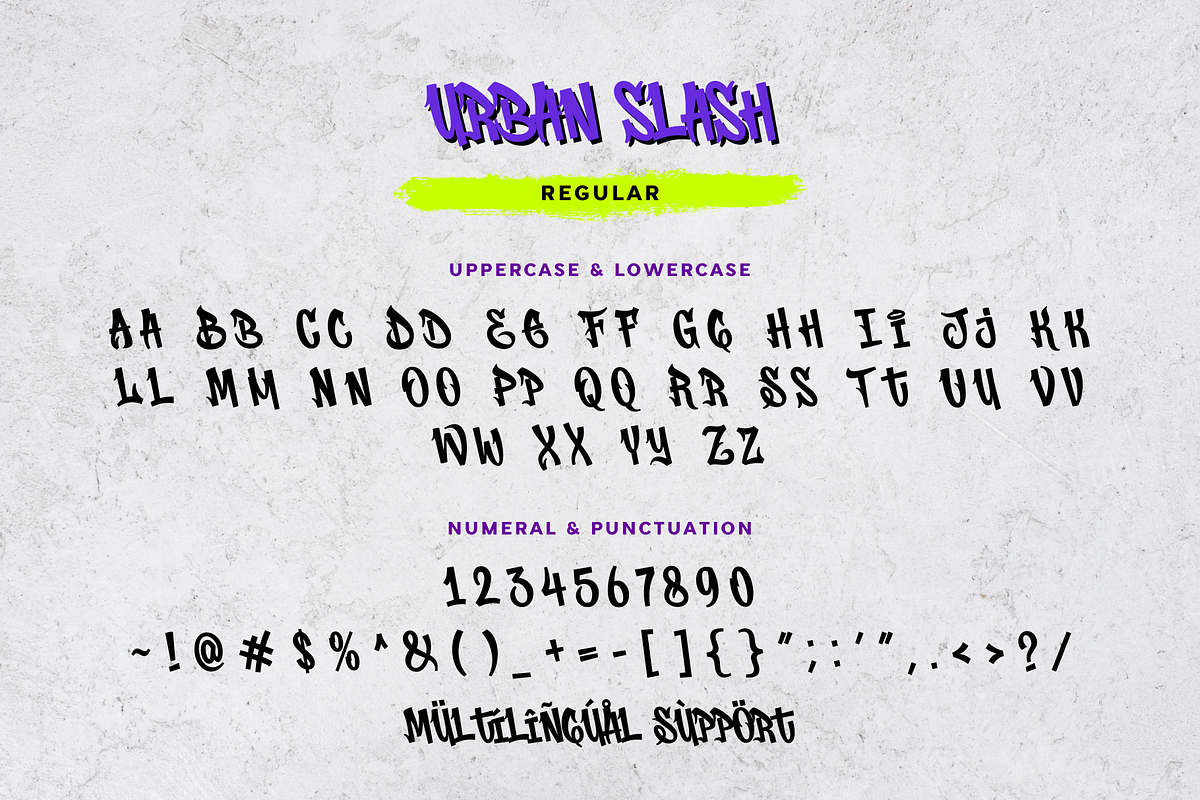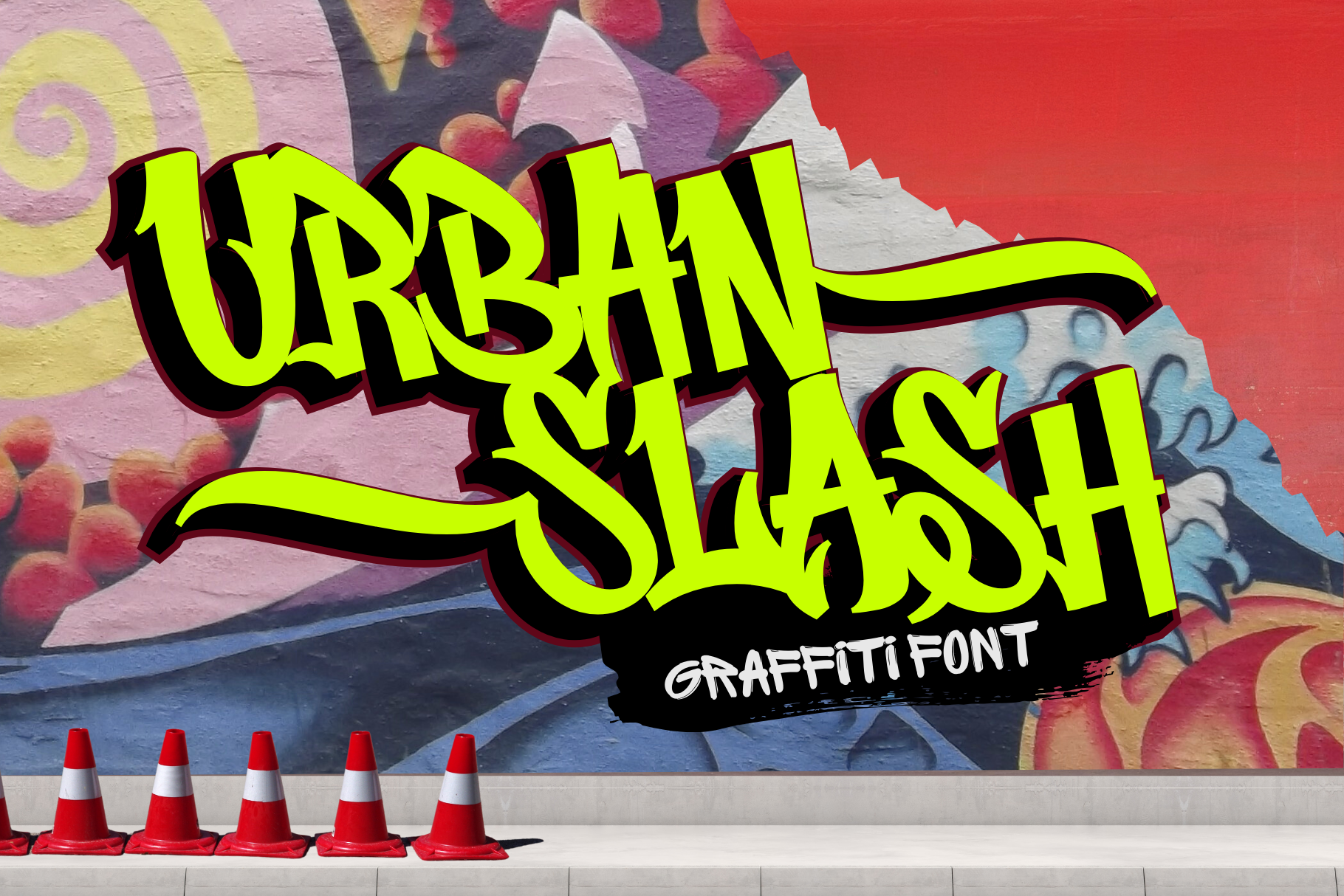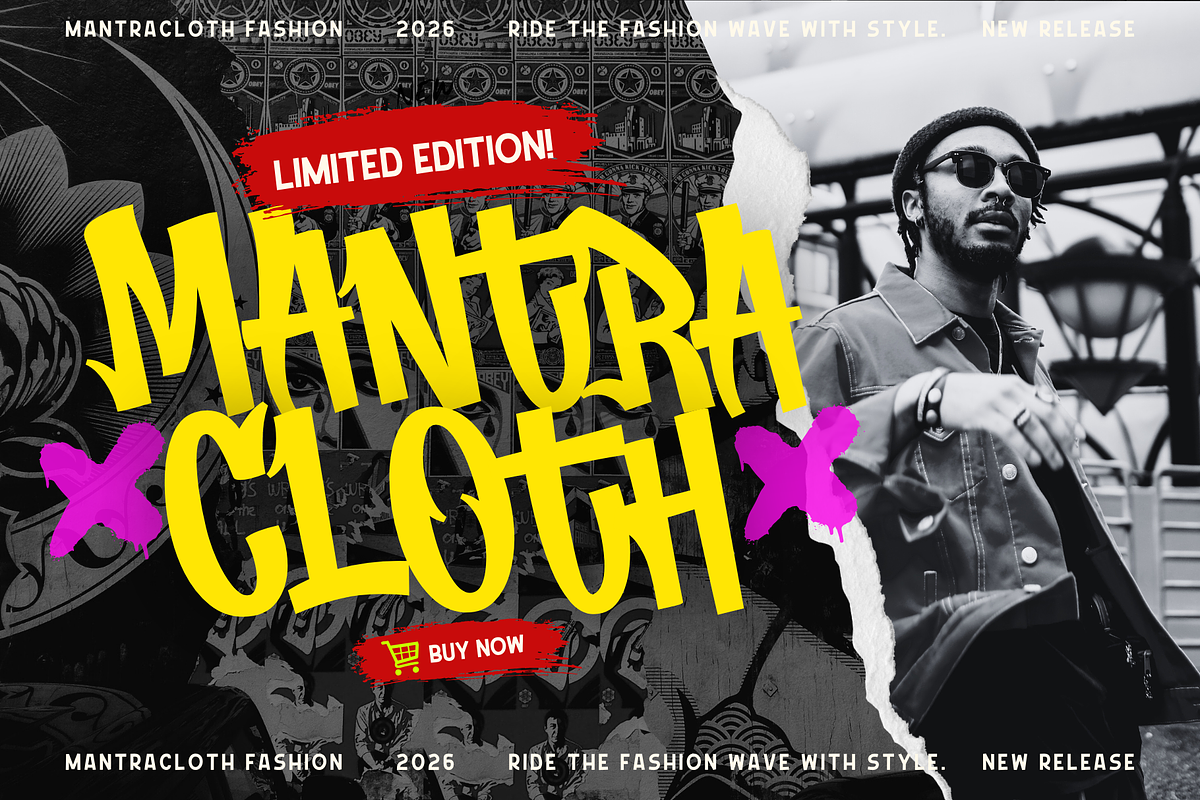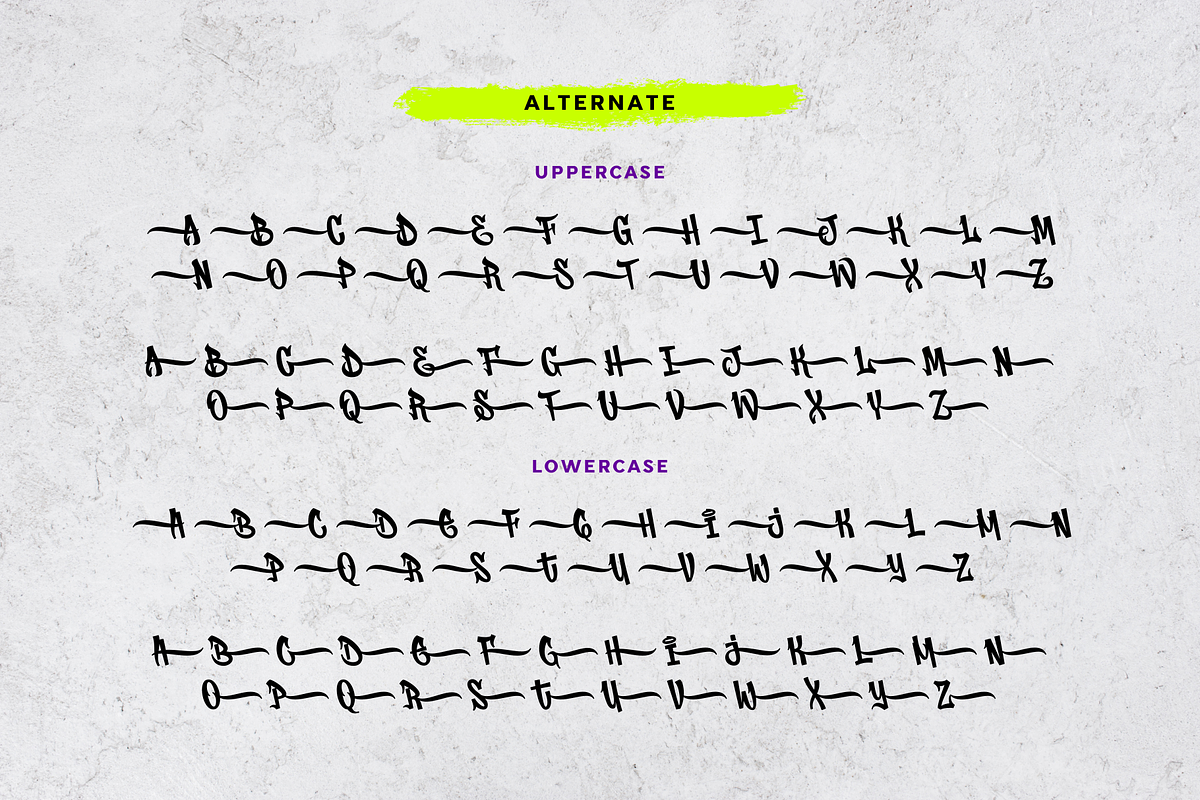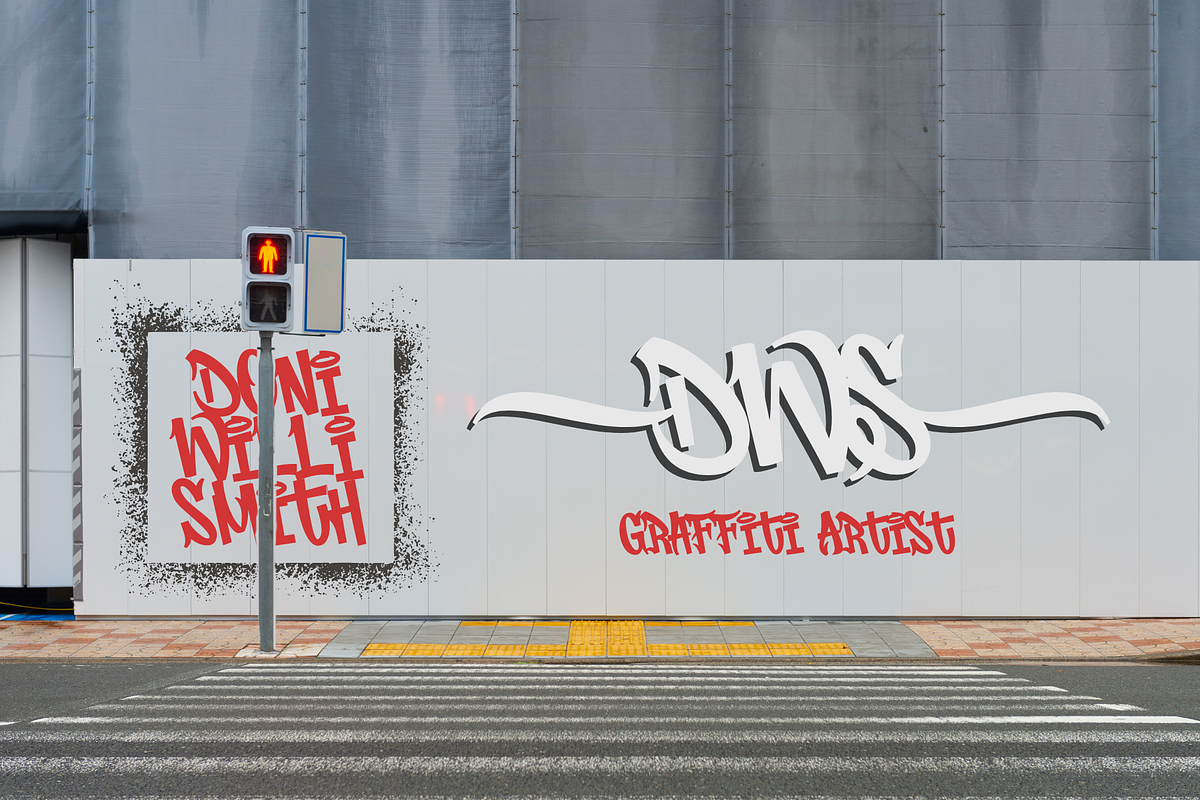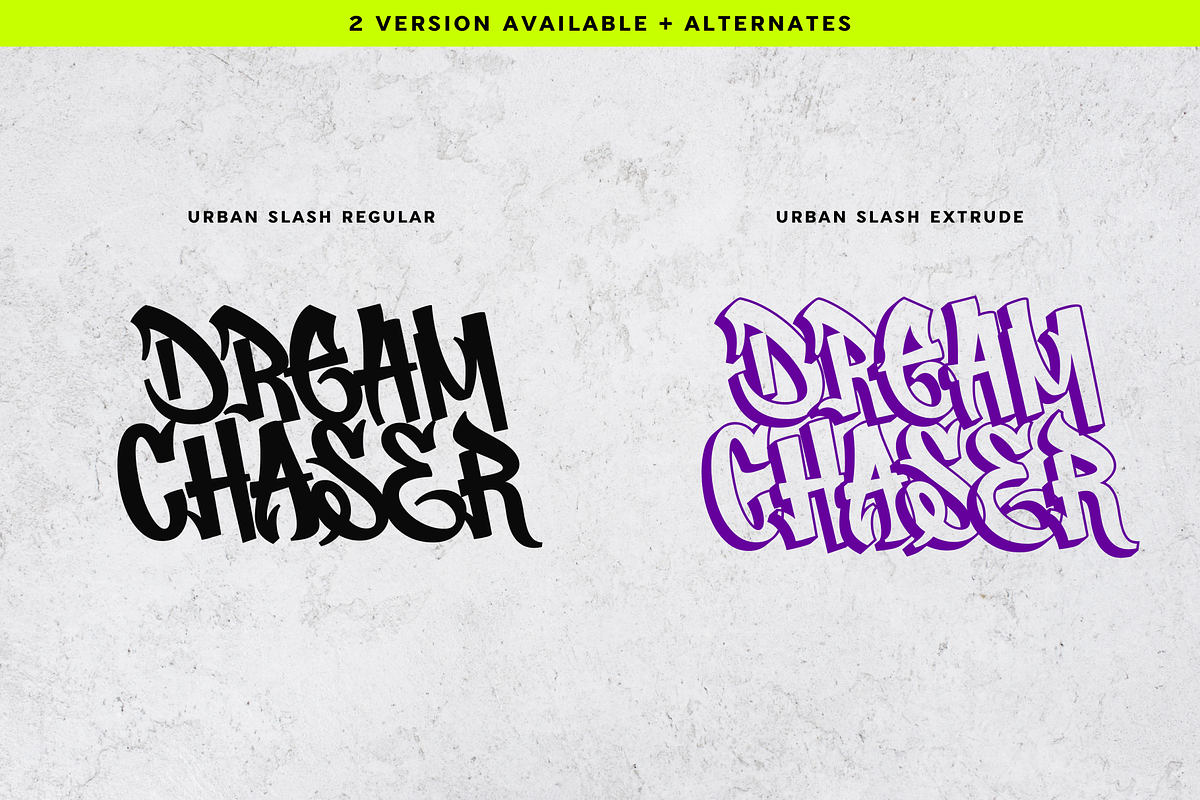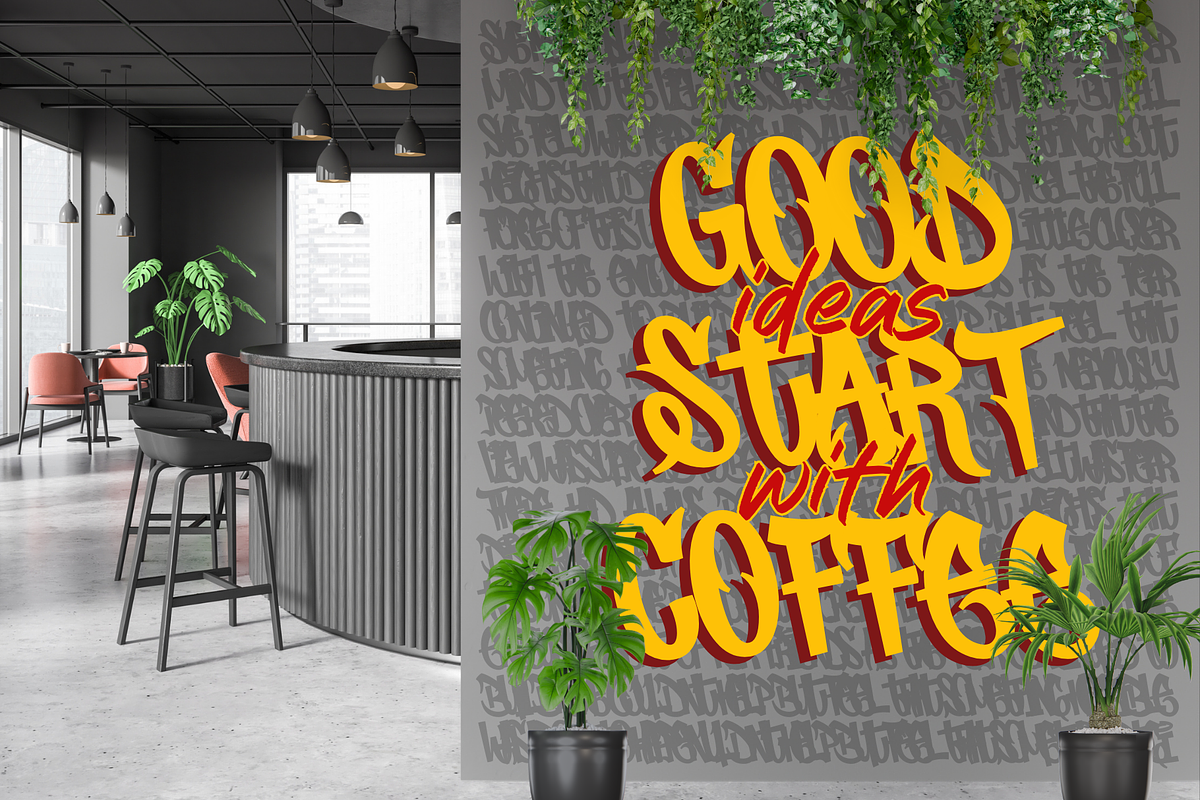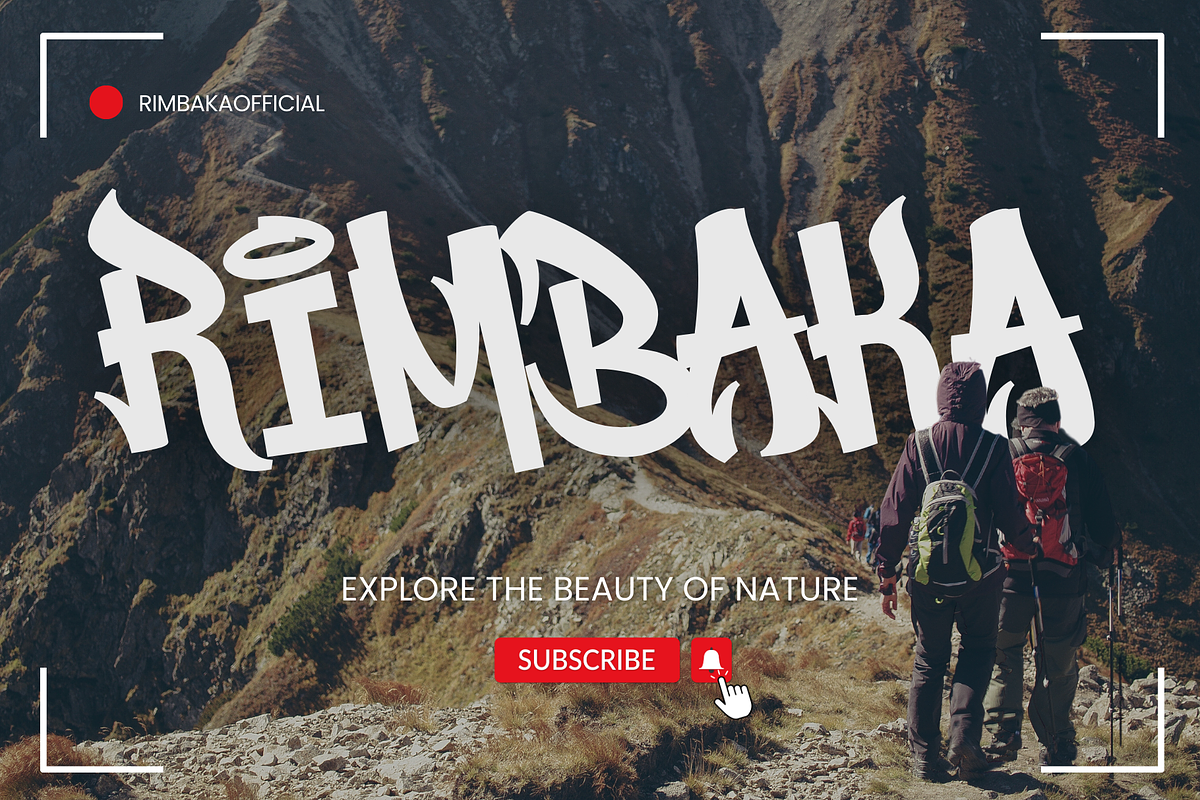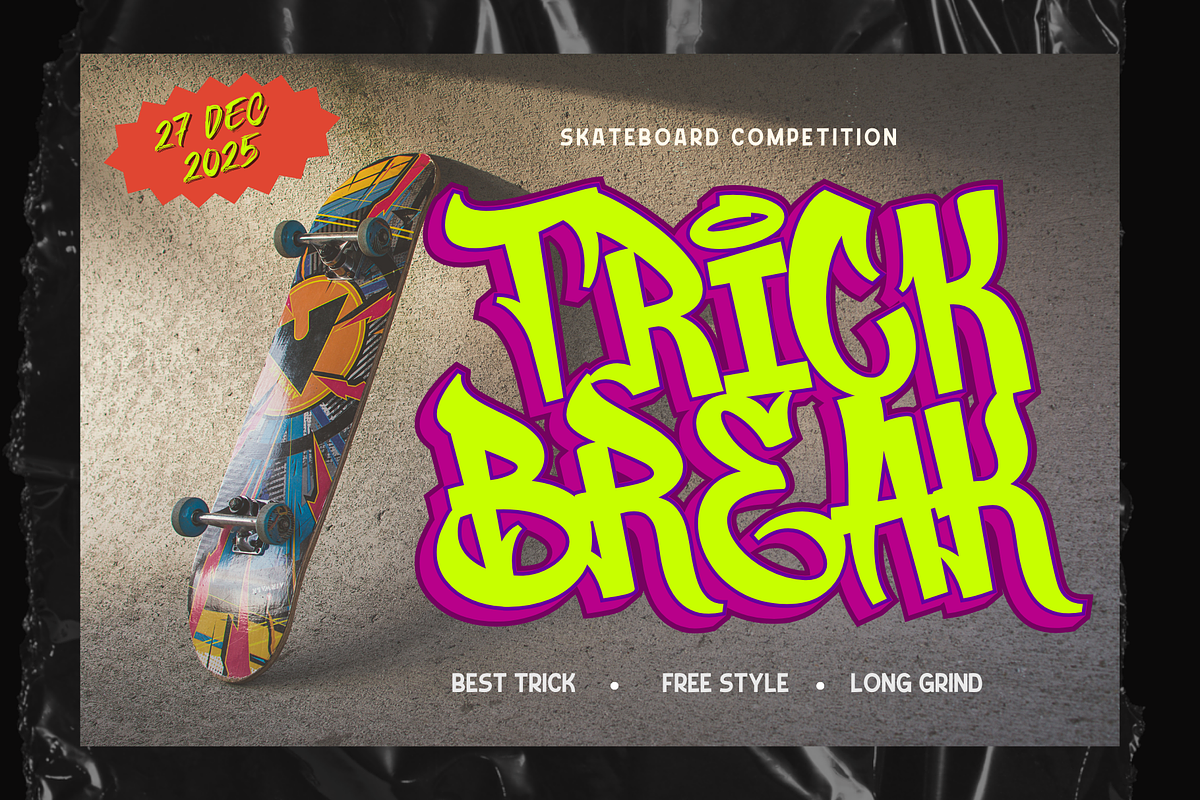
Urban Slash - Graffity Font
Urban Slash is a bold and edgy graffiti font that captures the essence of street art. With its sharp lines and urban vibe, this font is perfect for posters, logos, apparel designs, and projects that need a rebellious, creative touch. Make your designs stand out with Urban Slash!
- 2 Style : Regular & Extrude
- Swash Alternates